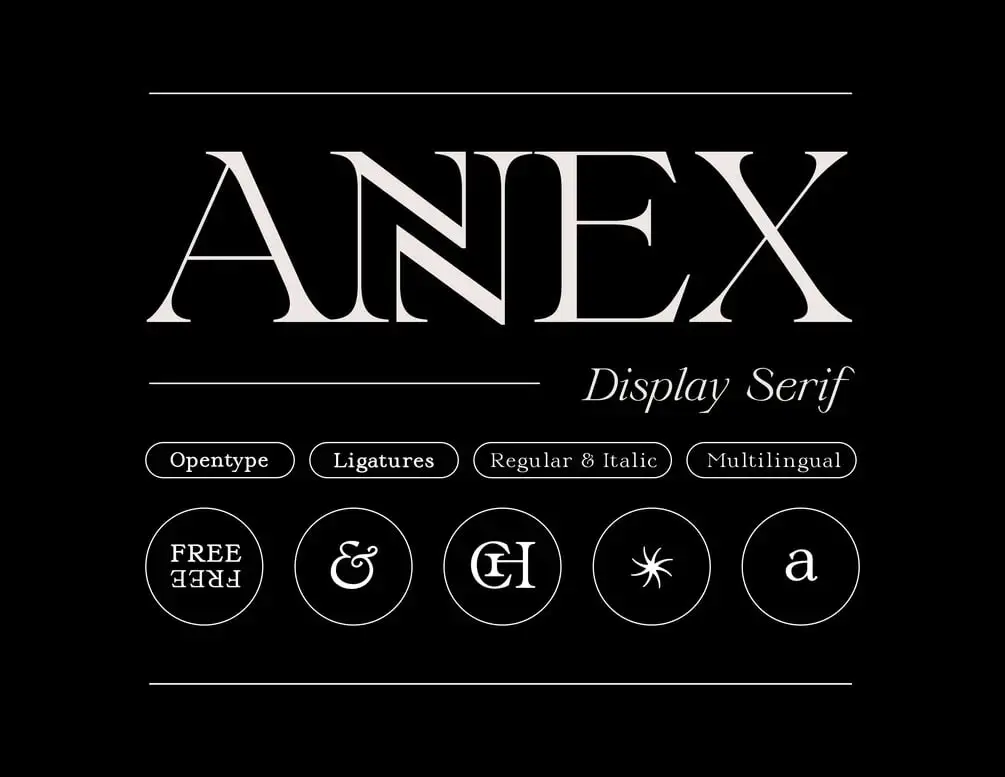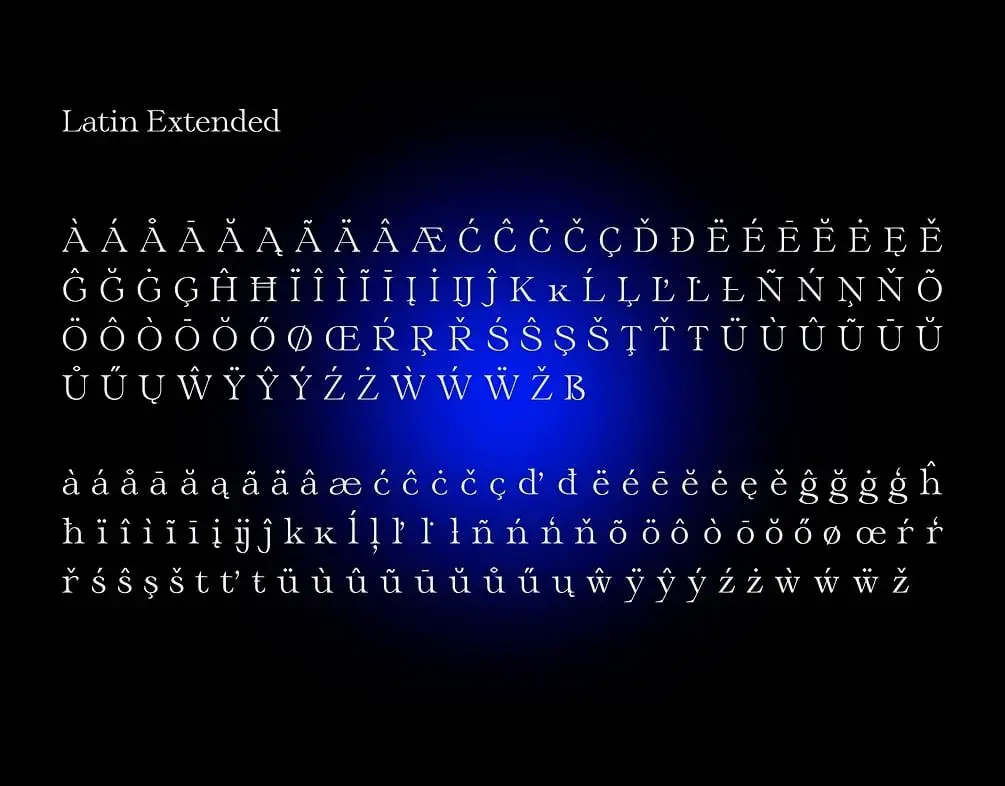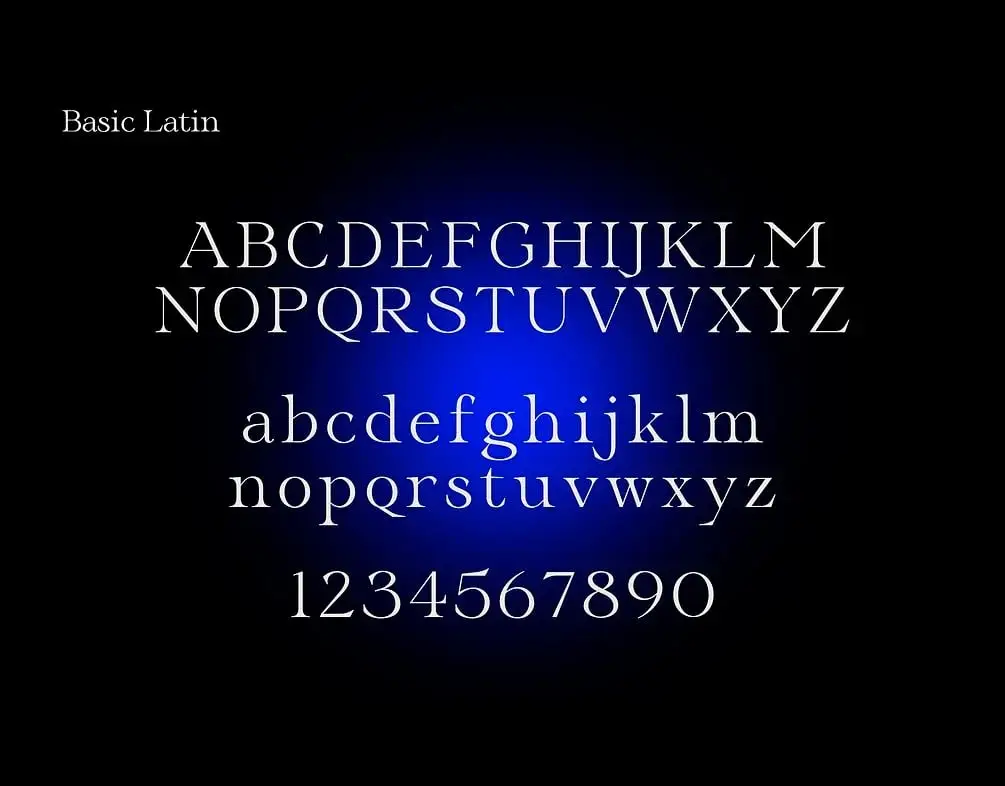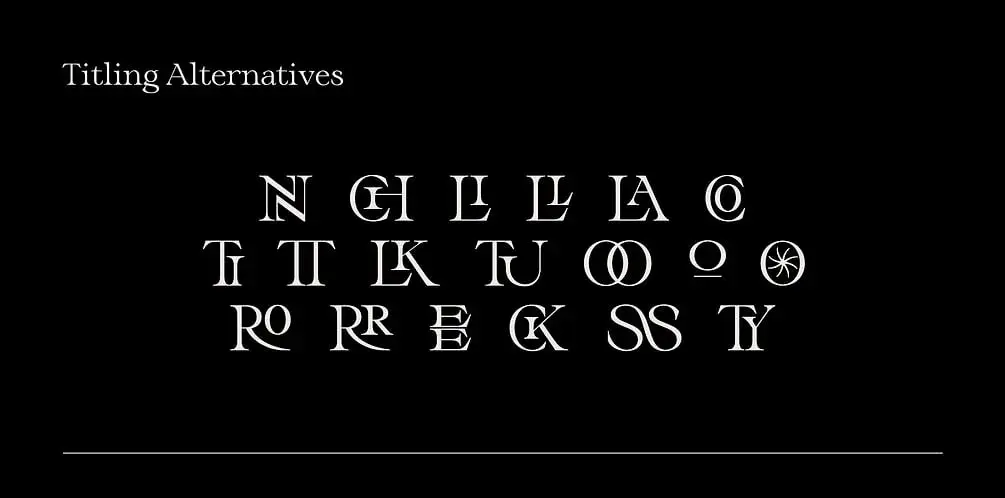
Spencetype-Annex (Serif Display Font)
Introducing Spencetype-Annex, a sophisticated serif display font designed to elevate your typography projects. With its elegant curves and distinctive character, this font is perfect for creating striking headlines, branding elements, and any design that requires a touch of class.
• Stylish serif design
• Extensive character set including ligatures